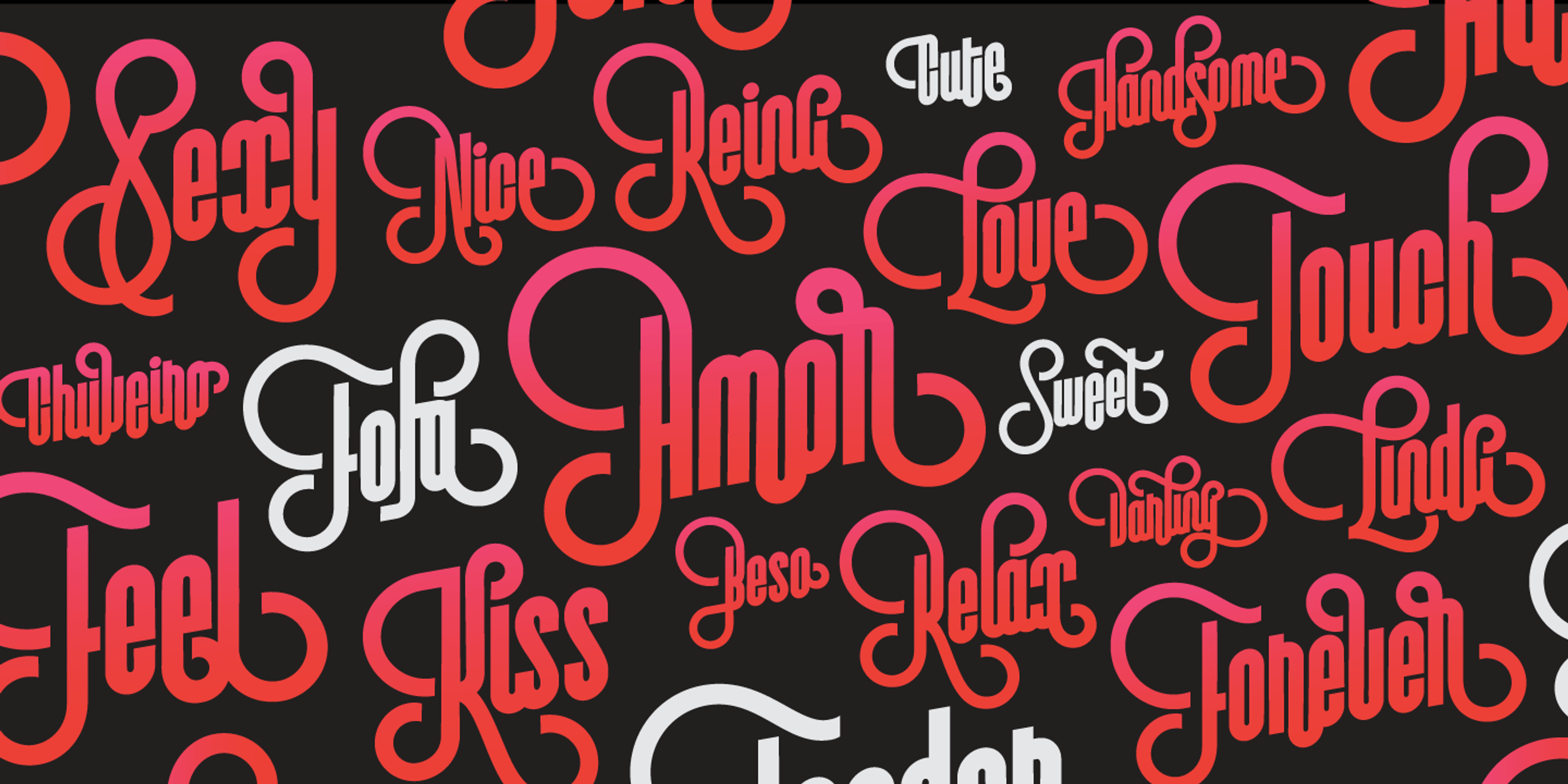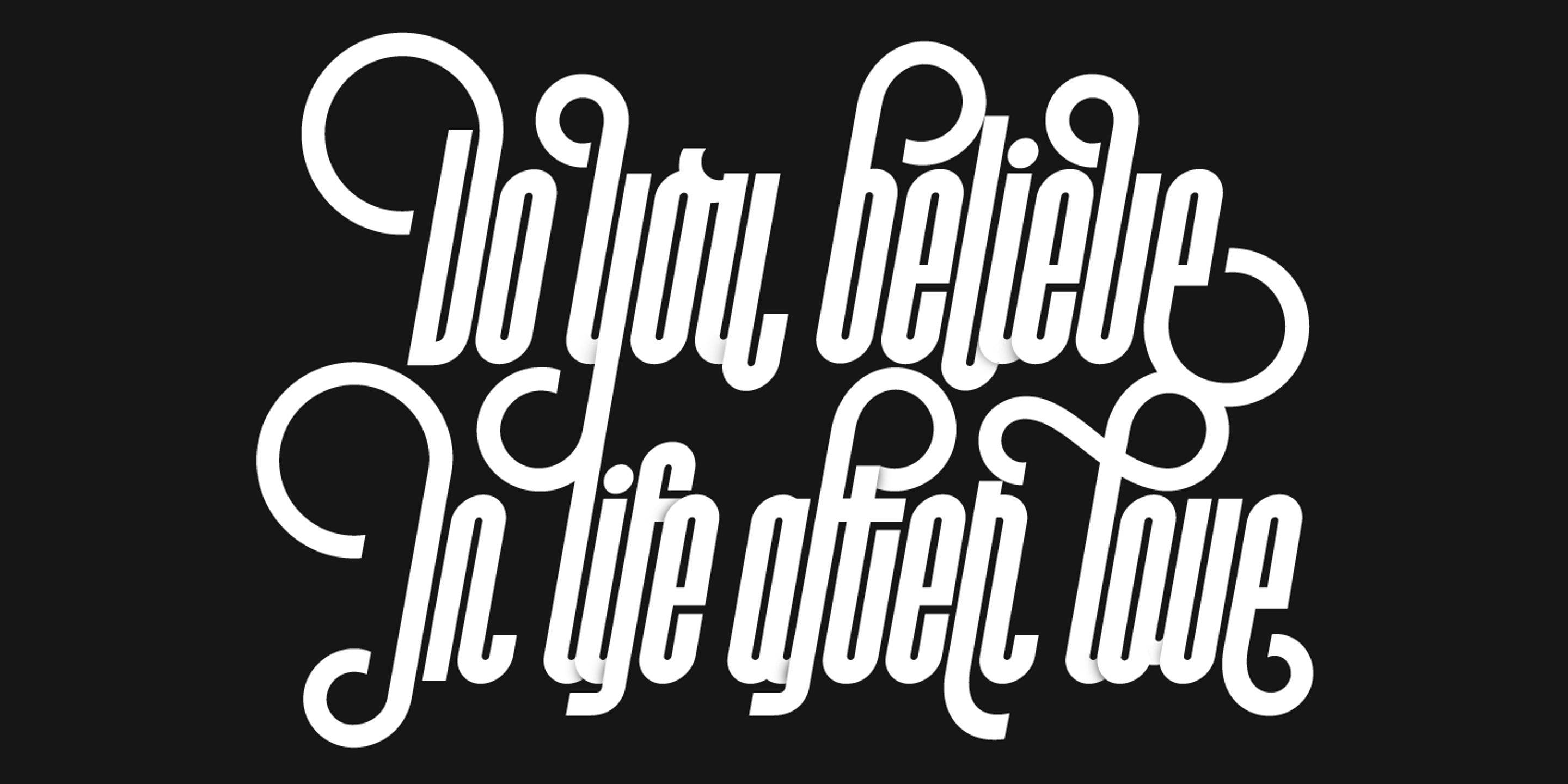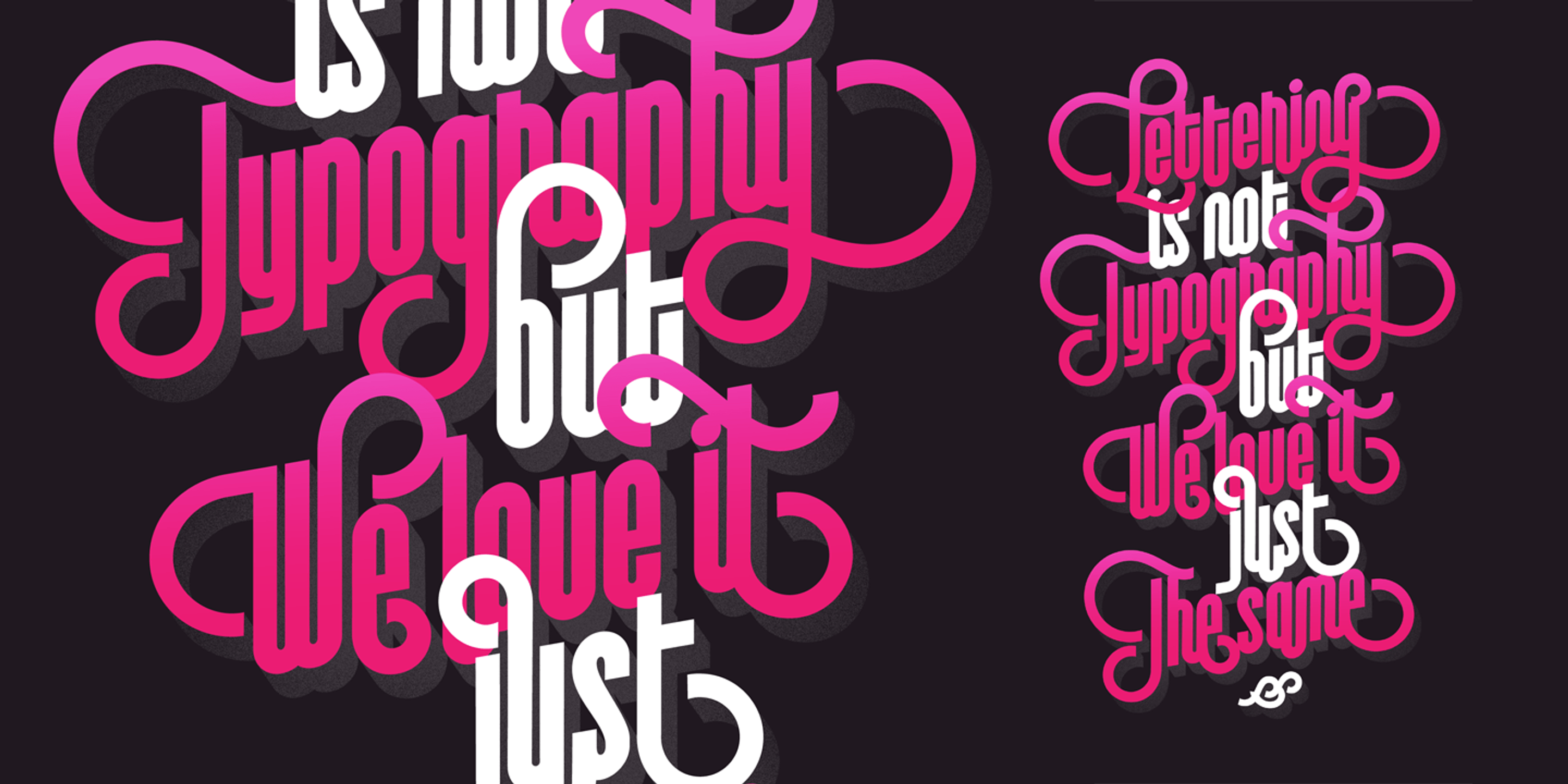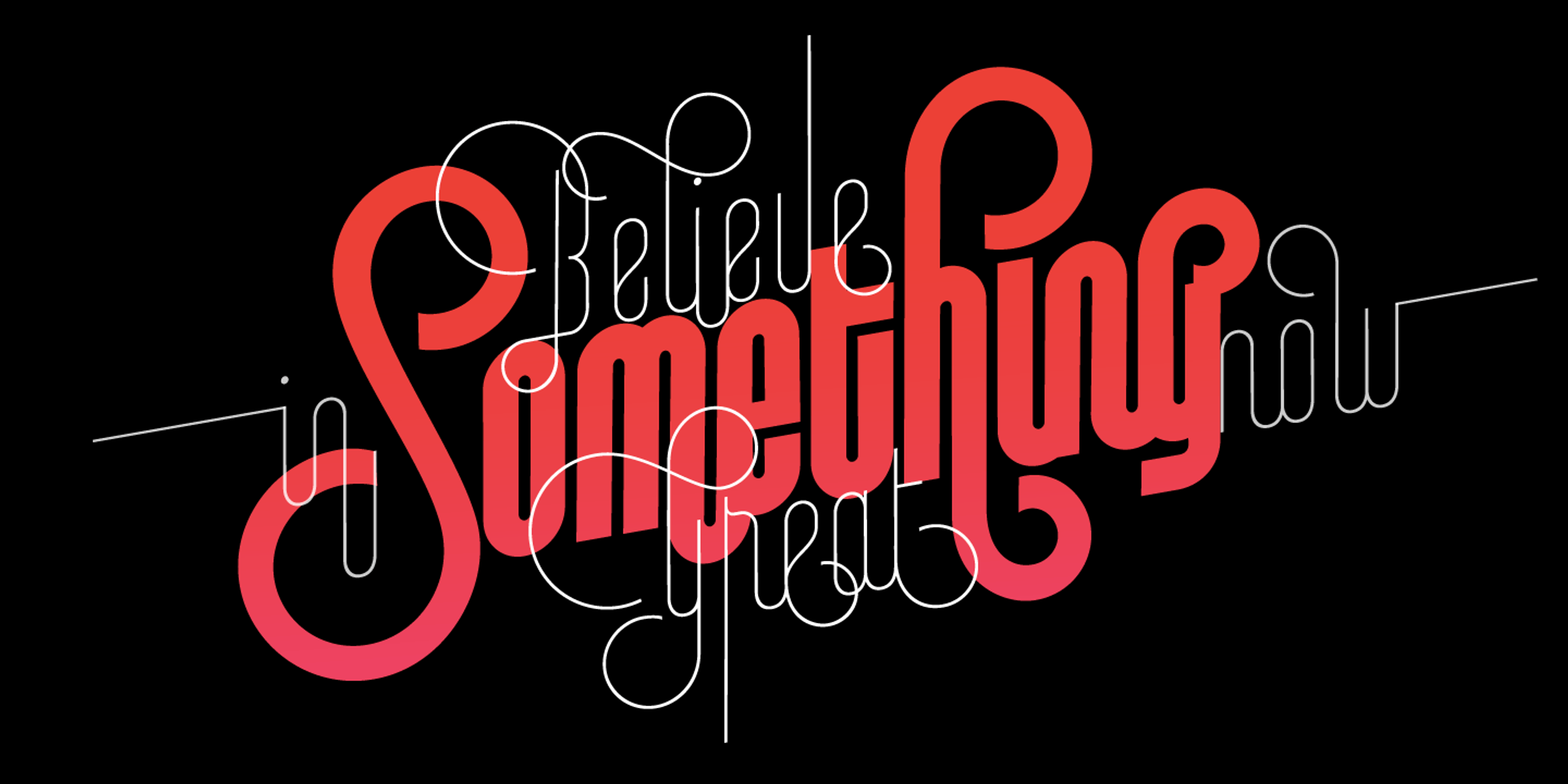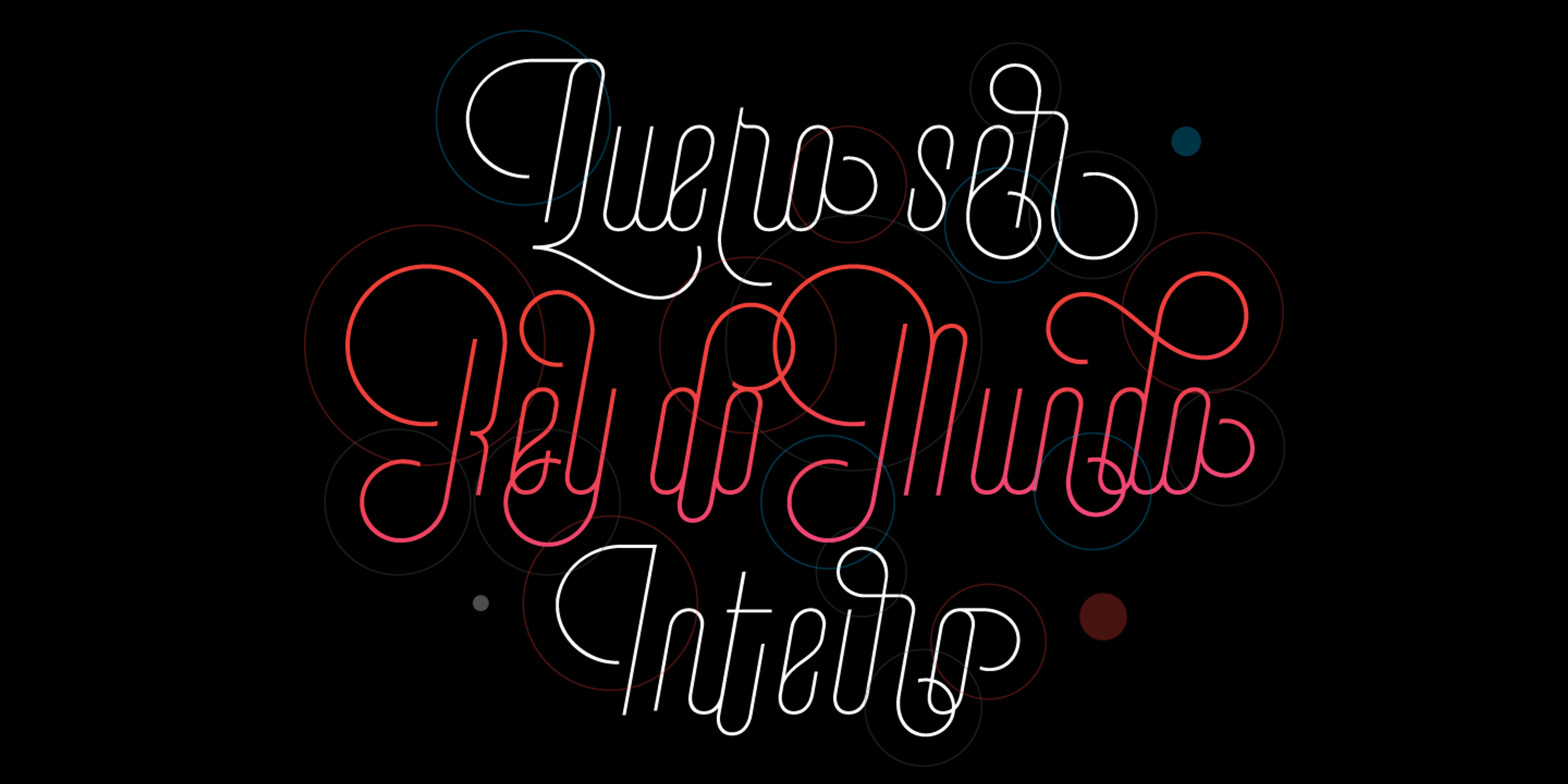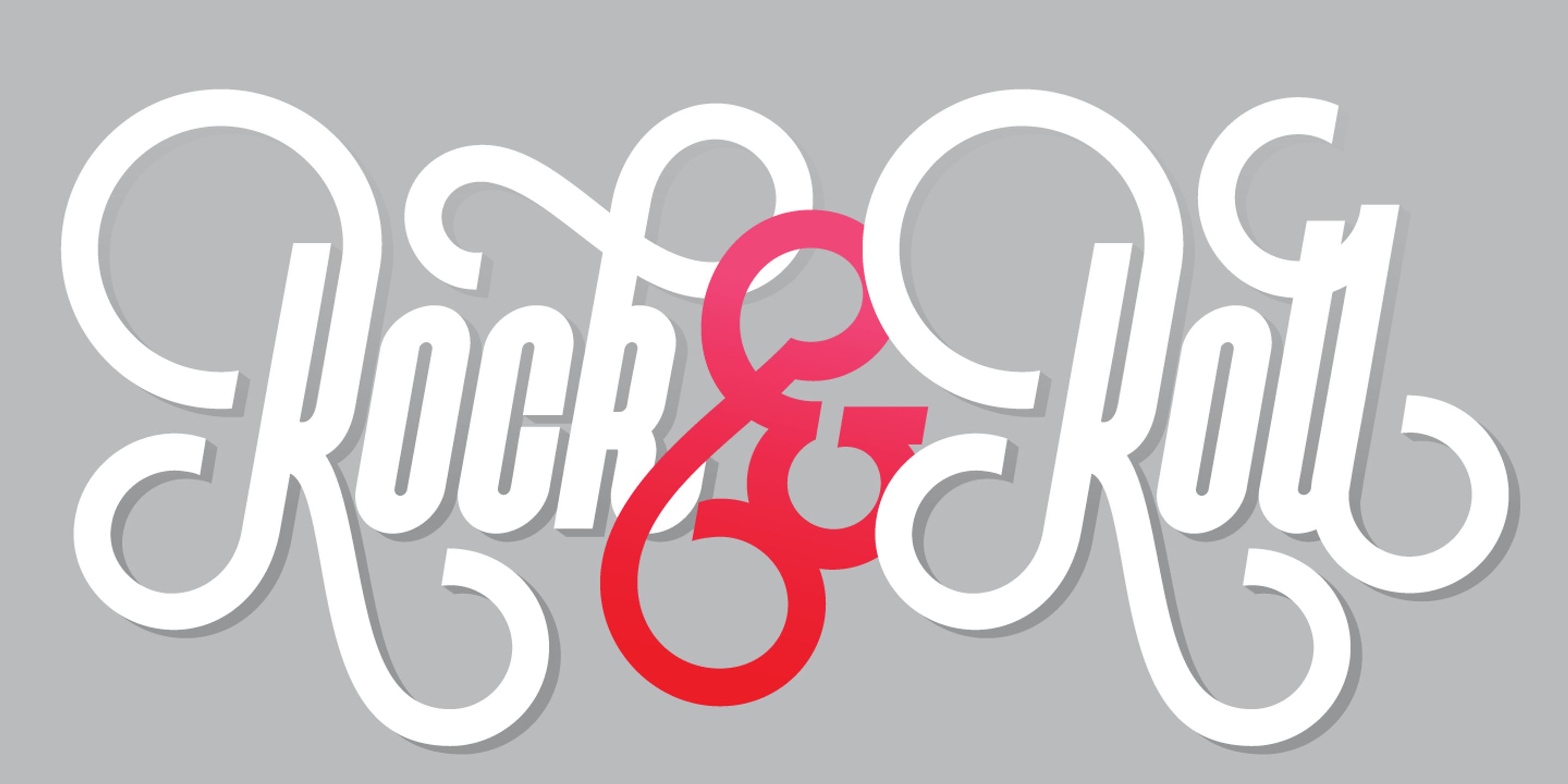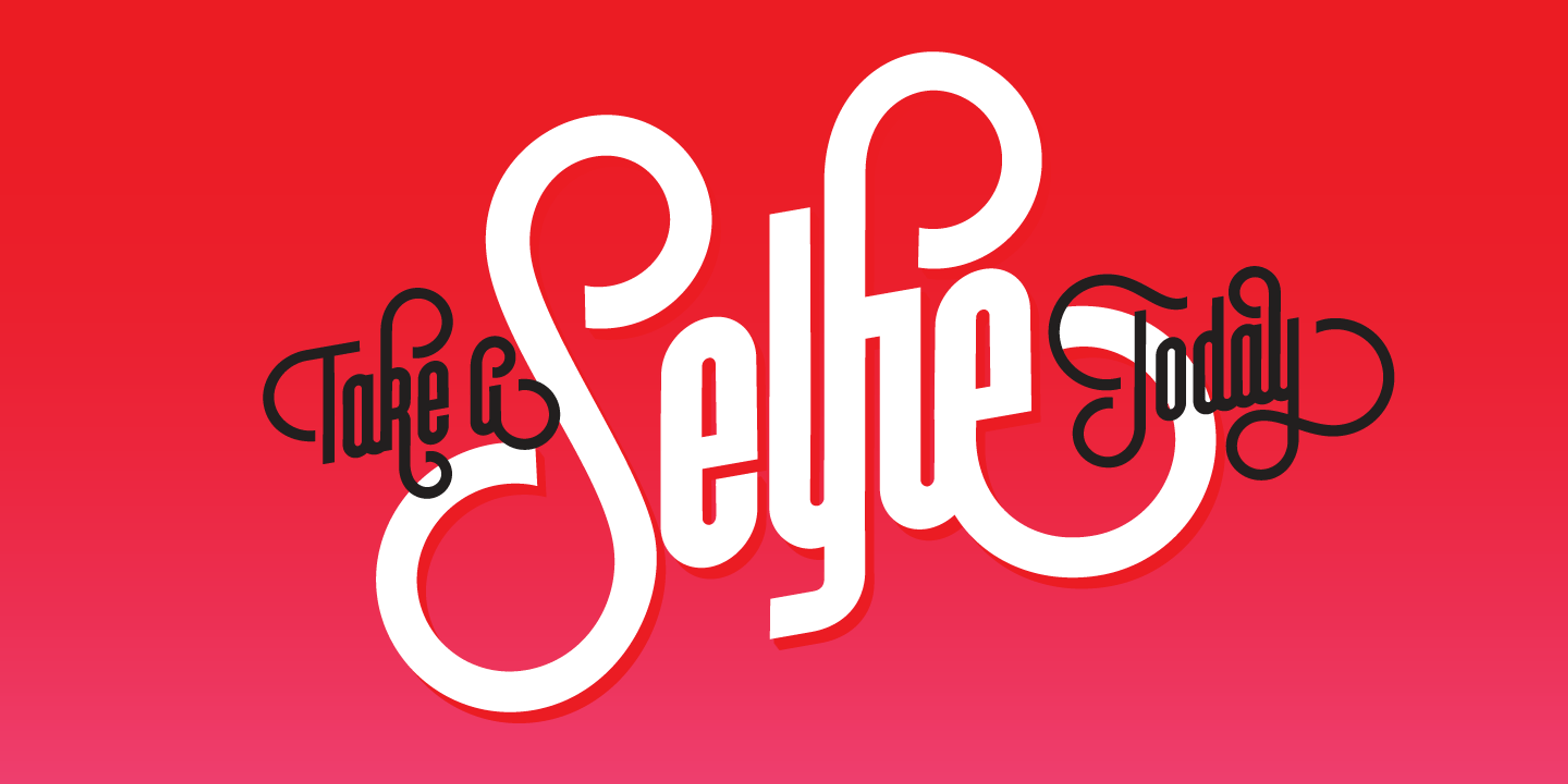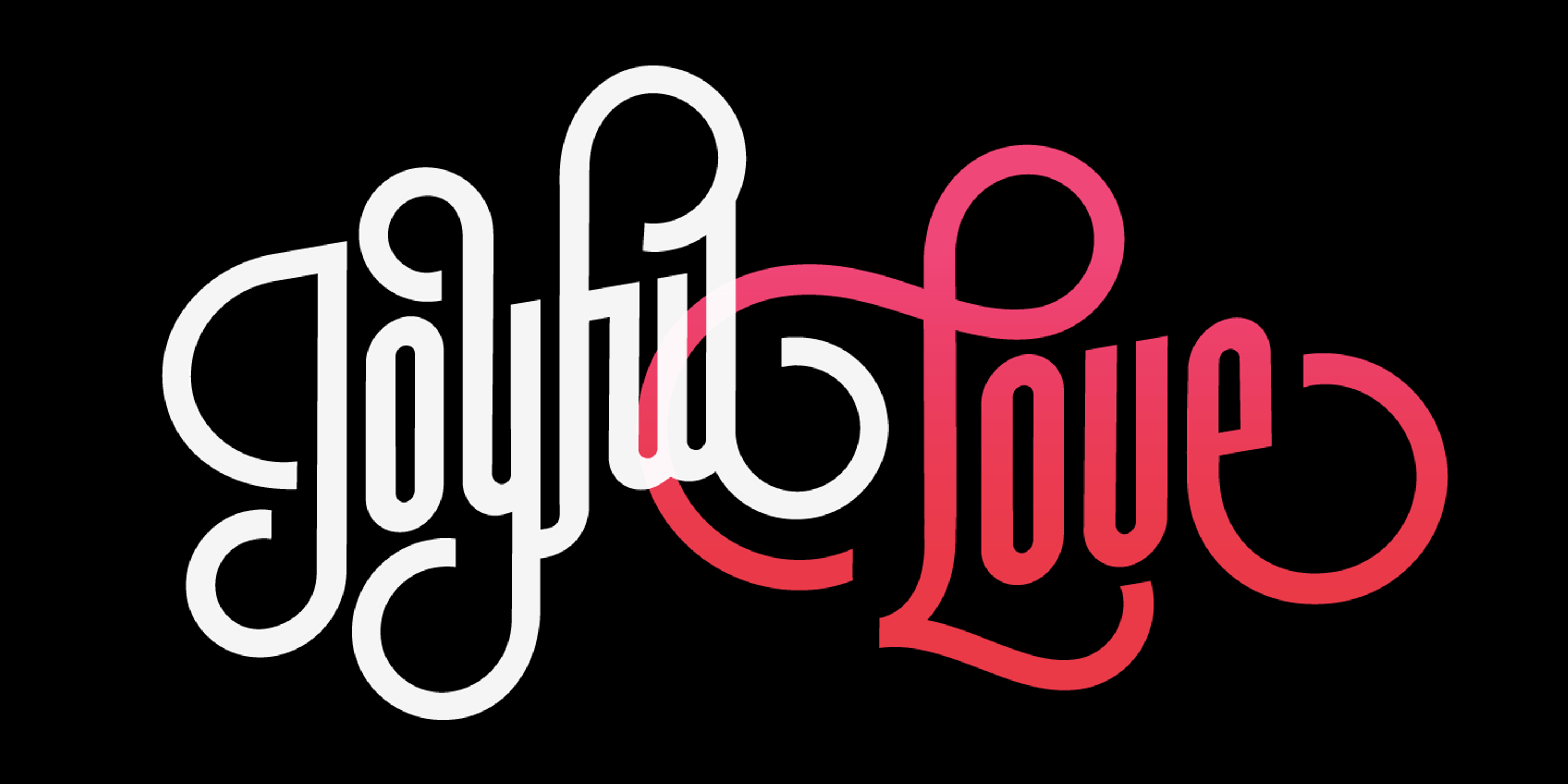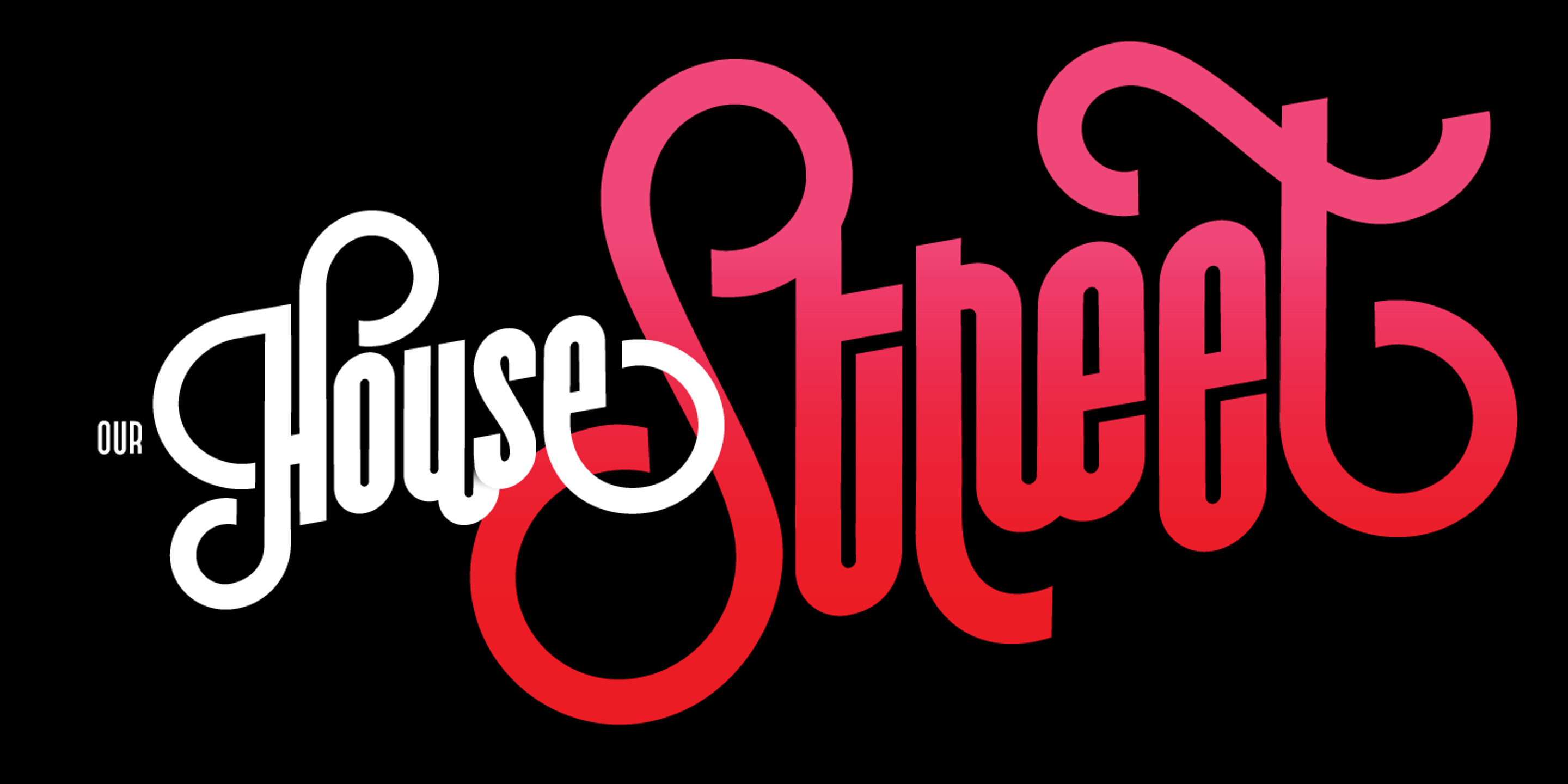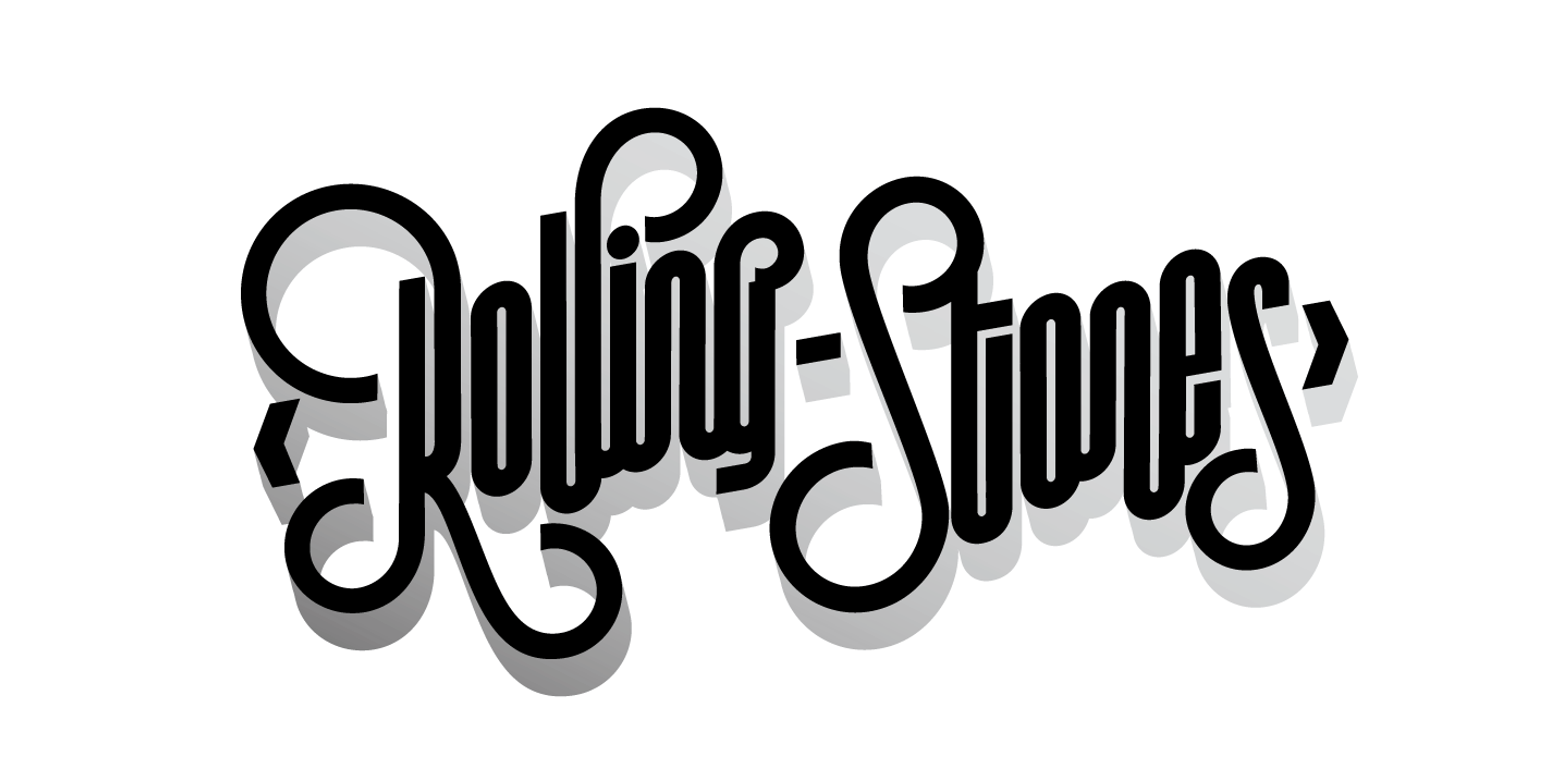
Vinyle font by Sproviero Type — a pattern of script words in red, pink, and white, including “Sexy”, “Amor”, “Love”, “Feel”, and “Forever”
Vinyle font by Sproviero Type — the words “in Something” in bold red connected script, with “Believe” and “great” in thin white script above and below, and “now” in thin white script to the right
Vinyle font by Sproviero Type — the words “Quero ser Rey do Mundo Inteiro” in connected script, with the first and third lines in white and the second line in pink, all with a background of faint circles and dots
Vinyle font by Sproviero Type — the words “Rock & Roll” in a connected script, with “Rock” and “Roll” in white and the ampersand in red.
Vinyle font by Sproviero Type — the word “Selfie” in large, white, connected script lettering, with the words “Take a” and “Today” in smaller, black, connected script lettering above and below it.
Vinyle font by Sproviero Type — the connected script words “Joyful Love” in white and pink, with the “f” and “l” intertwined
Vinyle font by Sproviero Type — the word “OUR” in small white upright sans-serif letters, and the words “House Street” in large connected script letters, “House” in white and “Street” in a pink-to-red gradient
Vinyle font by Sproviero Type — the words “Rolling Stones” in a connected script with a drop shadow
Vinyle font by Sproviero Type — the word “Vinyle” in a bold, connected script with a pink-to-red gradient and a dark drop shadow, set against a blurred background of upright record albums
Vinyle font by Sproviero Type — the phrase “Do you believe in life after love” in a white, connected script with rounded terminals and a shadow effect
Vinyle font by Sproviero Type — the phrase “Lettering is not Typography but We love it Just The same” in a connected script, with some words in white and others in a pink gradient, all with a dark drop shadow
Vinyle Slim
Vinyle Light
Vinyle Regular
Vinyle Tall
Vinyle is a retro-futuristic sans with bold curves, smooth swashes, vertical rhythm, and serious stage presence. Its slanted stance and geometric forms channel the swagger of vintage records, neon signs, and custom lettering. Every script-like style grooves with a big personality, from Slim to Light and Regular to Tall. Just imagine it! Great for logos, headlines, posters, book covers, branding, or packaging needing POP! Vinyle turns typographic flair into a graphic statement with presence.
Ligatures
Discretionary Ligatures
Contextual Alternates
Stylistic Alternates
Swashes
Stylistic Set 1
Stylistic Set 2
Stylistic Set 3
Stylistic Set 4
Stylistic Set 5
Stylistic Set 6
Stylistic Set 7
Stylistic Set 8
Stylistic Set 9
Stylistic Set 10
Stylistic Set 11
Stylistic Set 12
Stylistic Set 13
Stylistic Set 14
Stylistic Set 15
Titling
Final Forms